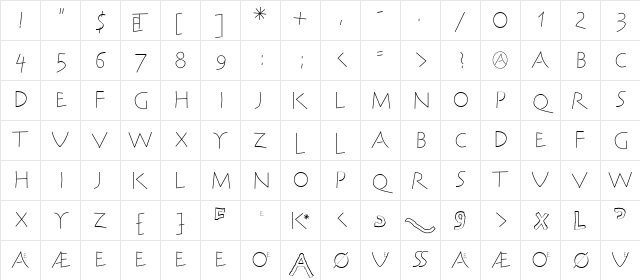
SteinAntik-Light Regular Free Font
SteinAntik-Light Regular
Design Context for SteinAntik-Light
SteinAntik-Light is a composed and adaptable typeface that performs quietly and consistently across a wide range of design contexts. Its slender proportions lend an understated elegance to any composition.